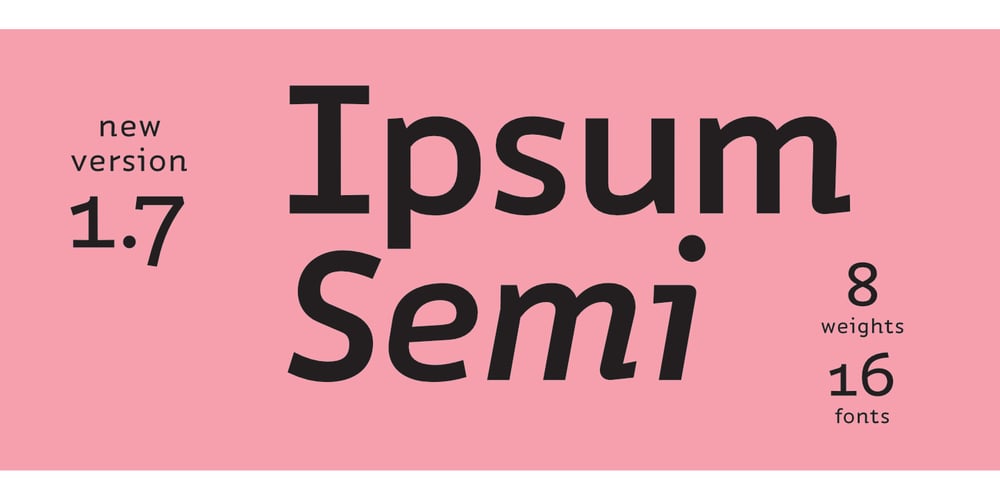
Ipsum Semi
Ipsum Semi font
Ipsum Semi Font Family was designed by Ebern Klause and published by Rawblind Basetype. Ipsum Semi contains 21 styles and family package options. Fresh new type from the Netherlands. An original, lively, eclectic semi-slab serif intended for general use. Quirky yet seriously usable, the family features enough weights to fit any design situation and all fonts are suitable for screen and print. Full Latin-script language support, including Maltese, Turkish, Vietnamese, Greenlandic, Azerbaijani, Afrikaans and localized Polish and Romanian.Download the Quick Start Cheat Sheet here to help you get the most out of Ipsum Semi.For requests or remarks, feel free to get in touch.